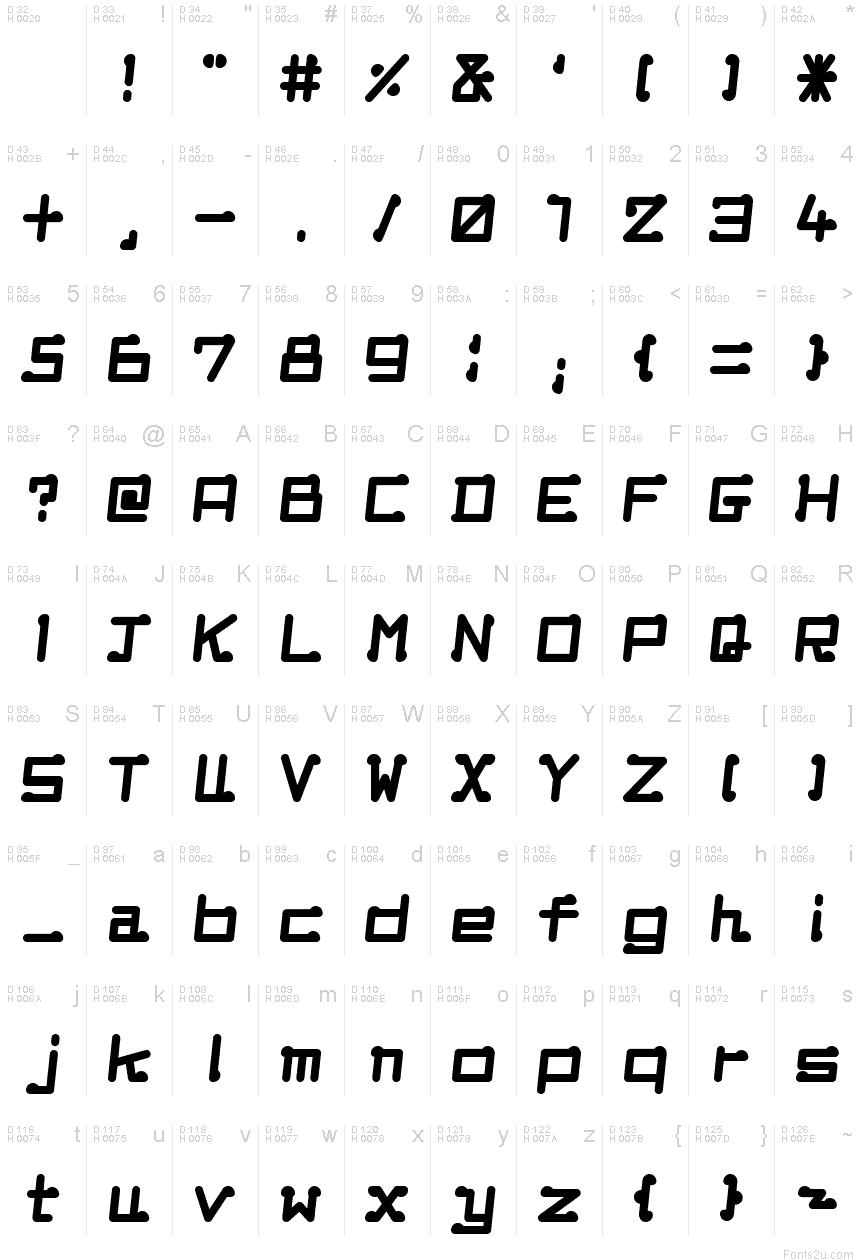
EOPcoupon E
EOPcoupon E font by Eop is a free futuristic display typeface with a bold, rubbery texture and soft rectangular curves. Each letter feels like it’s been punched out of a sleek plastic panel, with clipped corners and rounded terminals that keep the rhythm smooth and fast. The uniform weight and tight, engineered shapes give EOPcoupon E a distinct sci‑fi energy without sacrificing readability at larger sizes.
Using EOPcoupon E, titles and wordmarks instantly pick up a techy, forward-looking edge. This free font works beautifully for gaming logos, sci-fi posters, tech event branding, app splash screens, product packaging, and bold social media graphics. For longer supporting text, pair it with a clean geometric sans in a lighter weight to keep the headlines loud and the details easy to read.